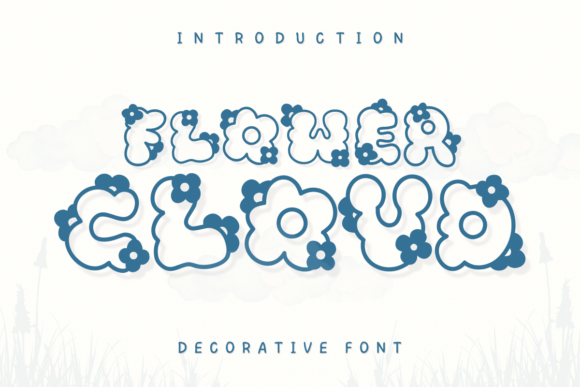
Flower Cloud Font: A Delicate and Decorative Font for Creative Expression
The Flower Cloud Font is a beautiful and delicate decorative font that can add a touch of elegance and whimsy to various creative projects. Whether you’re taking notes, writing a diary, or making greeting cards, this font is perfect for adding a personal and artistic touch. In this article, we’ll explore the features and uses of the Flower Cloud Font, and how it can be used to enhance your designs.
What is Flower Cloud Font?
Flower Cloud Font is a decorative font designed to resemble a whimsical and romantic floral pattern. The font features intricate and delicate flower designs that are woven together to create a beautiful and eye-catching text style. The font is perfect for creative projects that require a touch of elegance and sophistication.
Features of Flower Cloud Font
The Flower Cloud Font has several features that make it a great choice for creative projects. Some of its key features include:
- Delicate and intricate designs: The font features delicate and intricate flower designs that are woven together to create a beautiful text style.
- Whimsical and romantic feel: The font has a whimsical and romantic feel that makes it perfect for creative projects that require a touch of elegance and sophistication.
- Easy to read: Despite its decorative nature, the font is easy to read and can be used for a variety of creative projects.
- Versatile: The font can be used for a variety of creative projects, including notes, diaries, greeting cards, banners, and more.
Uses of Flower Cloud Font
The Flower Cloud Font can be used for a variety of creative projects, including:
- Taking notes: The font is perfect for taking notes and adding a touch of elegance to your journal or planner.
- Writing a diary: The font can be used to add a personal and artistic touch to your diary or journal entries.
- Making greeting cards: The font is perfect for creating beautiful and unique greeting cards for special occasions.
- Designing banners: The font can be used to create eye-catching banners for events, promotions, or other creative projects.
- Creating content: The font can be used to add a touch of elegance and sophistication to your content, including social media posts, blog articles, and more.
- Designing mugs, cards, shirts, and stationery: The font can be used to create beautiful and unique designs for mugs, cards, shirts, and stationery.
Benefits of Using Flower Cloud Font
There are several benefits to using the Flower Cloud Font in your creative projects. Some of the benefits include:
- Adds a touch of elegance and sophistication: The font adds a touch of elegance and sophistication to your creative projects, making them stand out from the crowd.
- Perfect for creative expression: The font is perfect for creative expression and can be used to add a personal and artistic touch to your projects.
- Versatile: The font can be used for a variety of creative projects, making it a great addition to your font collection.
Tips and Tricks for Using Flower Cloud Font
Here are some tips and tricks for using the Flower Cloud Font:
- Use it sparingly: Use the font sparingly to add a touch of elegance and sophistication to your designs.
- Experiment with font sizes: Experiment with different font sizes to create a unique and eye-catching design.
- Combine with other fonts: Combine the Flower Cloud Font with other fonts to create a unique and creative design.
- Use it for headings: Use the font for headings and titles to add a touch of elegance and sophistication to your designs.
The Flower Cloud Font is a beautiful and delicate decorative font that can add a touch of elegance and whimsy to various creative projects. With its intricate and delicate flower designs, whimsical and romantic feel, and versatility, it’s perfect for creative expression and can be used for a variety of projects. By following the tips and tricks outlined in this article, you can create beautiful and unique designs that showcase your creativity and style.